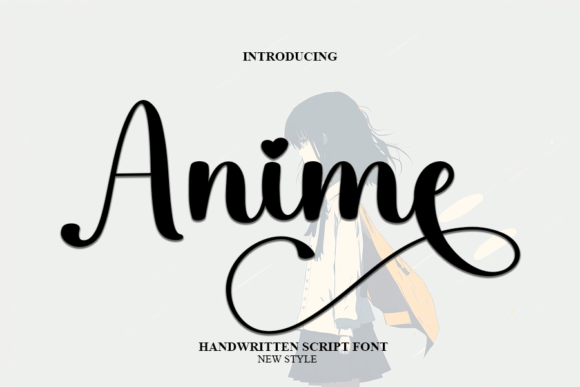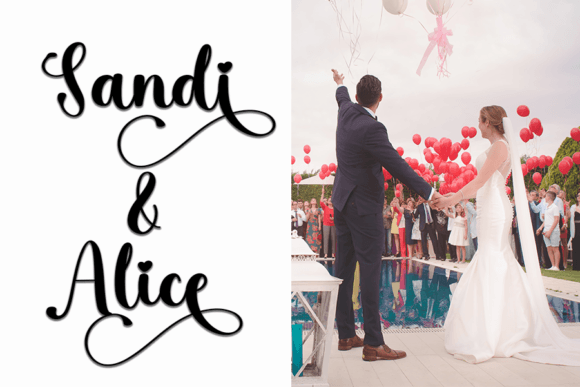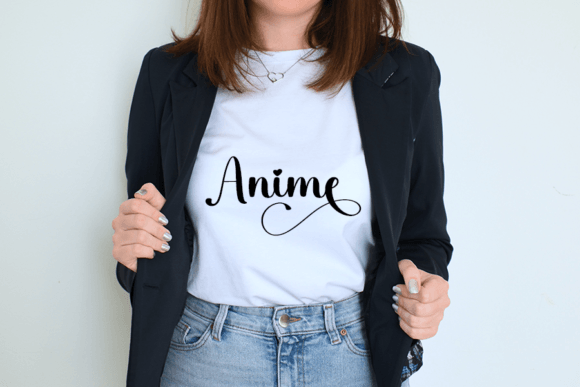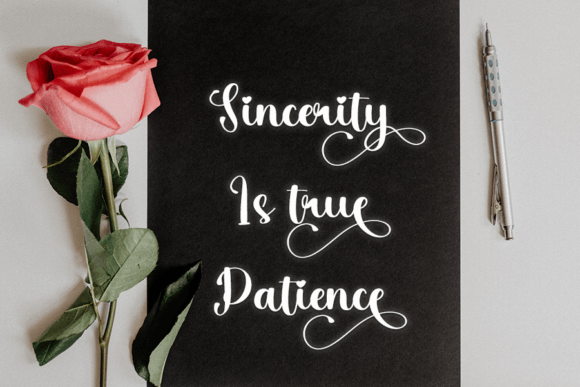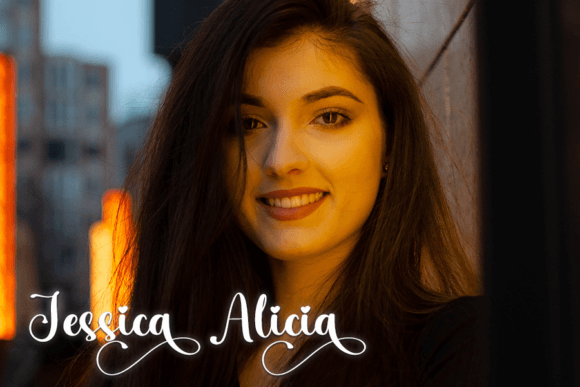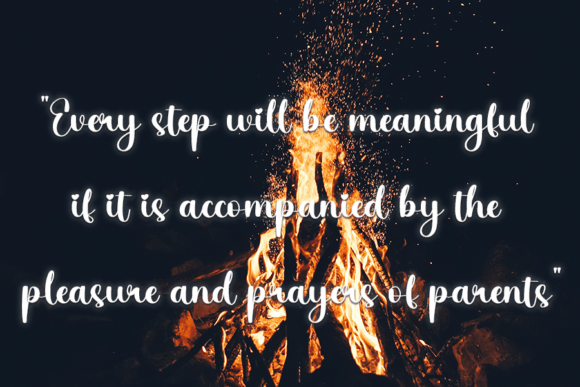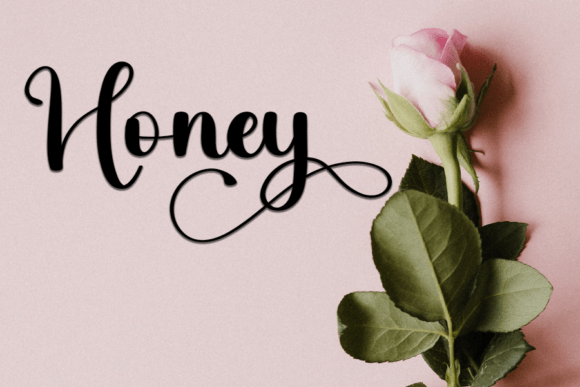
Anime Font
About Anime Font
Anime Font is a charming handwritten typeface that blends elegance, creativity, and personality into a single design solution. With its smooth curves and carefully balanced strokes, this font offers a light and graceful feel that is perfect for projects needing a personal, stylish touch. Whether you’re designing for business or pleasure, Anime Font is your go-to typeface for eye-catching and meaningful typography.
Stylish and Graceful by Nature
Anime Font stands out for its delicate yet expressive design. The strokes are fluid and airy, giving a handwritten appearance without sacrificing readability. This makes it ideal for headlines, product packaging, logo design, wedding invitations, and much more. It adds a human element that connects with audiences on an emotional level.
Where You Can Use Anime Font
Thanks to its versatility, Anime Font can be used across a wide range of design applications, including:
• ✦ Wedding Invitations & Greeting Cards – Add a romantic, handwritten feel to your special moments.
• ✦ Food Packaging – Perfect for artisanal, organic, or homemade products.
• ✦ Social Media Graphics – Great for Instagram quotes, captions, or branding visuals.
• ✦ Branding & Logos – Give your brand a touch of elegance with a human twist.
• ✦ T-Shirts, Stickers & Crafts – A fun font that fits any creative DIY project.
• ✦ Product Labels & Tags – Adds charm and warmth to labels and bottle designs.
Key Features
• ✅ Handwritten Style: Looks personal and organic—like ink on paper.
Who Should Use Anime Font?
If you’re a graphic designer, small business owner, DIY enthusiast, or creative blogger, Anime Font is made for you. Its welcoming and elegant tone makes it a perfect fit for both formal and casual designs.
Use it to tell a story, brand a product, or give your visual content a unique personality. With Anime Font, your words will not only be read but also felt.
Anime Font is more than just a typeface—it’s a creative tool for expressing emotion, charm, and elegance. Whether you’re working on a wedding project, branding something unique, or just making a fun social media post, Anime Font delivers that handwritten, heartfelt touch that today’s audiences love.
So go ahead, bring your ideas to life with Anime Font—where creativity meets character.